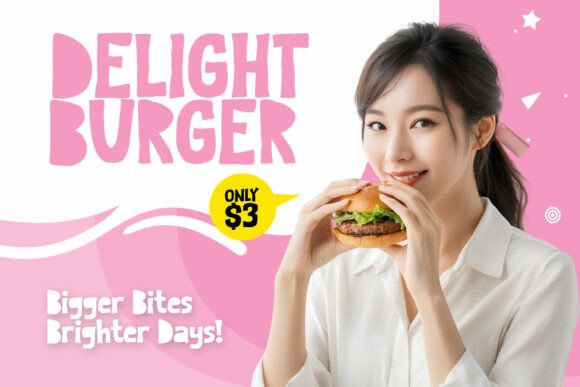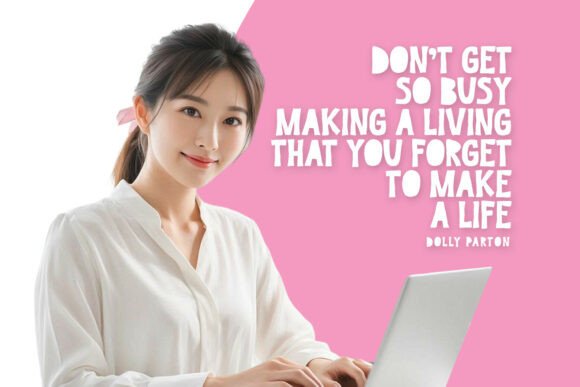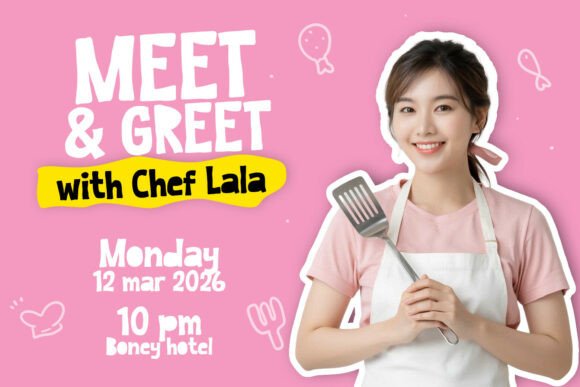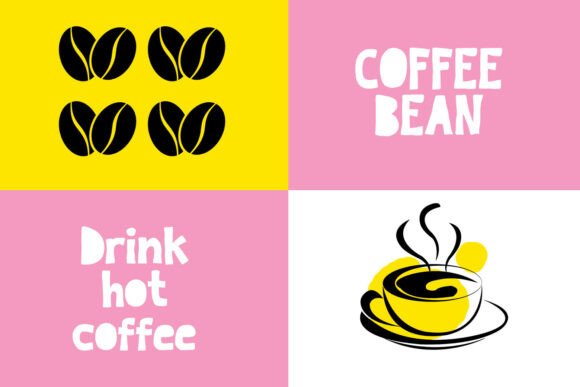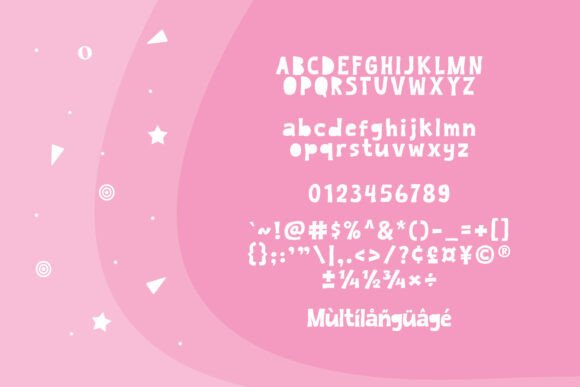
Introducing Bolue Font: The Modern and Cute Display Font for Creative Designs
Are you a designer or crafter looking for a font that can add a touch of modernity and cuteness to your projects? Look no further than Bolue Font! This versatile display font is perfect for a wide range of creative endeavors, from posters and logos to magazines, book covers, banners, and more.
What Makes Bolue Font So Special?
Bolue Font is a modern and cute display font that is designed to make your designs stand out. Its unique and playful style makes it perfect for projects that require a touch of whimsy and personality. Whether you’re creating a poster for a concert, a logo for a brand, or a book cover for a novel, Bolue Font is the perfect choice.
One of the best things about Bolue Font is its versatility. It can easily be matched to an incredibly large set of projects, making it a great addition to your font collection. Here are just a few ideas for how you can use Bolue Font:
- Posters: Create eye-catching posters for concerts, events, or promotions with Bolue Font.
- Logos: Use Bolue Font to create a unique and memorable logo for your brand.
- Magazines: Add a touch of modernity and sophistication to your magazine with Bolue Font.
- Book Covers: Make your book cover stand out with Bolue Font.
- Banners: Create attention-grabbing banners for events or promotions with Bolue Font.
Why Choose Bolue Font?
So why should you choose Bolue Font for your next project? Here are just a few reasons:
- Unique Style: Bolue Font has a unique and playful style that will make your designs stand out.
- Versatility: Bolue Font can be used for a wide range of projects, making it a great addition to your font collection.
- Easy to Use: Bolue Font is easy to use and can be easily matched to a variety of projects.
- High-Quality: Bolue Font is a high-quality font that is designed to produce crisp and clear results.
Tips and Tricks for Using Bolue Font
Here are a few tips and tricks for getting the most out of Bolue Font:
- Experiment with Different Sizes: Try using Bolue Font in different sizes to create visual interest and hierarchy.
- Combine with Other Fonts: Combine Bolue Font with other fonts to create a unique and interesting look.
- Use for Headlines and Titles: Use Bolue Font for headlines and titles to add a touch of modernity and sophistication.
| Font Name | Bolue Font |
| Author | si.jalembe |